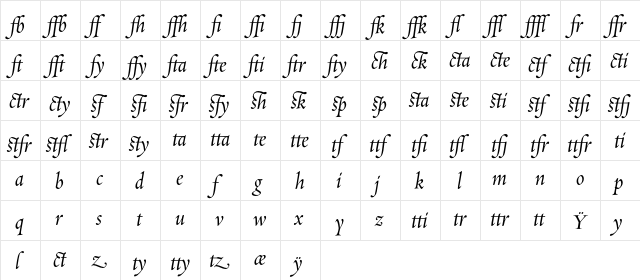
Requiem Display-HTF-ItalicLigs
Design Context for Requiem Typeface
Requiem brings ornamental detail and strong personality to headlines and identities, where visual impact matters more than quiet functionality. The slanted form adds forward momentum and visual energy.
Font Pairing: Pair with a clean neutral sans-serif for body copy to let Requiem's character lead without overwhelming the composition.
Pro Tip: Use Requiem exclusively at display sizes — it was designed to be seen, not read at length. Let a neutral companion handle body copy.